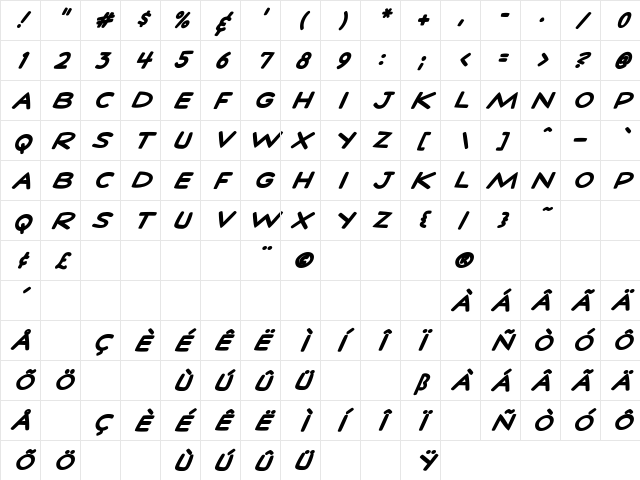
StanLee BoldItalic Free Font
StanLee BoldItalic
Complete StanLee BoldItalic glyph index. Displaying only characters natively supported by StanLee BoldItalic font.
Design Context for StanLee
StanLee is a composed and adaptable typeface that performs quietly and consistently across a wide range of design contexts. The slanted form adds forward momentum and visual energy. Its bold stroke weight gives it real presence on the page.
Pro Tip: Use StanLee for emphasis, pull quotes, and subheadings where its slanted energy can add rhythm to the layout.